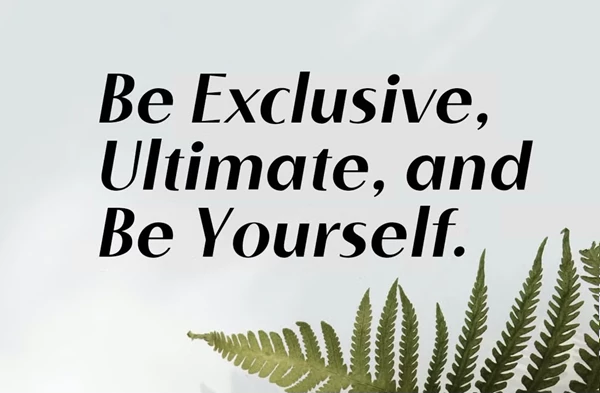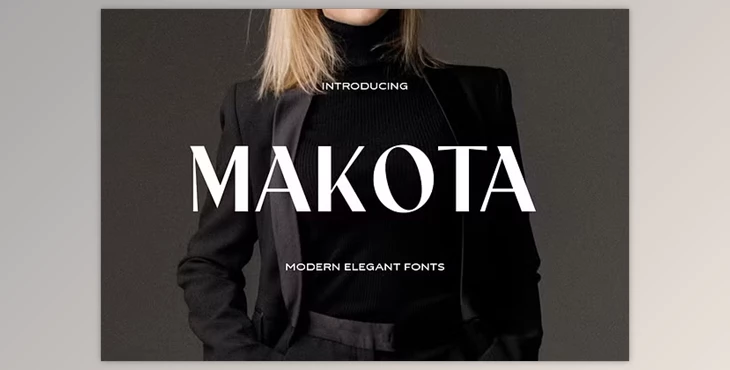
Makota - Modern Elegant Font: Introducing Makota, a sleek and modern font designed to elevate luxury-related design projects to new heights. With its tall and elegant typeface, Makota exudes sophistication, making it the great choice for branding, advertising, and other promotional materials.
How can we choose a modern font for our branding?
You can use "Makota - Modern Elegant Font."
Makota's high legibility ensures clear communication across various mediums, including websites, advertisements, and more. This versatile font supports all languages worldwide, offering global accessibility and ensuring that it meets the needs of diverse audiences.
"Makota - Modern Elegant Font" Samples:
With Makota, you have a single font that caters to all your design needs, eliminating the need to switch between multiple fonts for different purposes. Improve your projects with the timeless elegance of Makota and make a lasting impression with your branding and communication efforts.